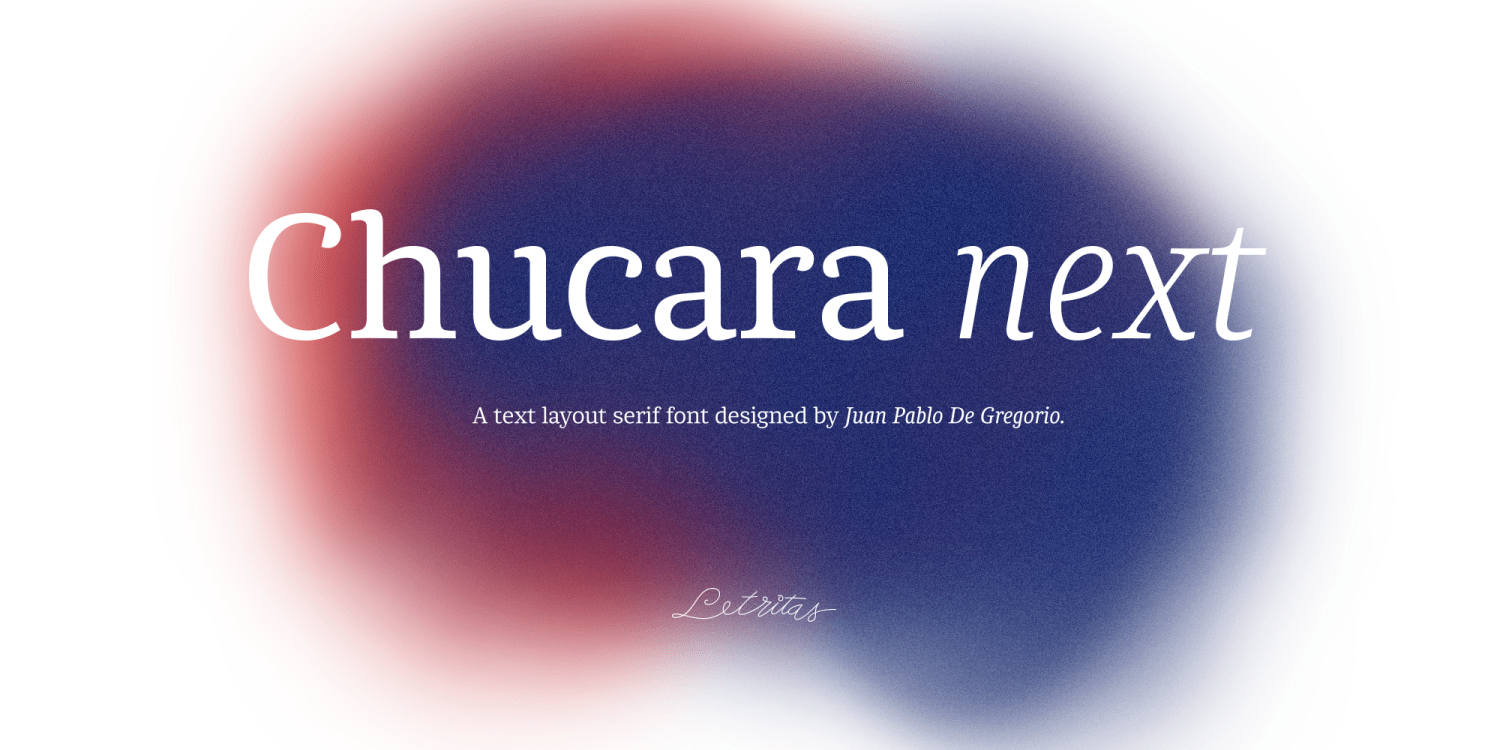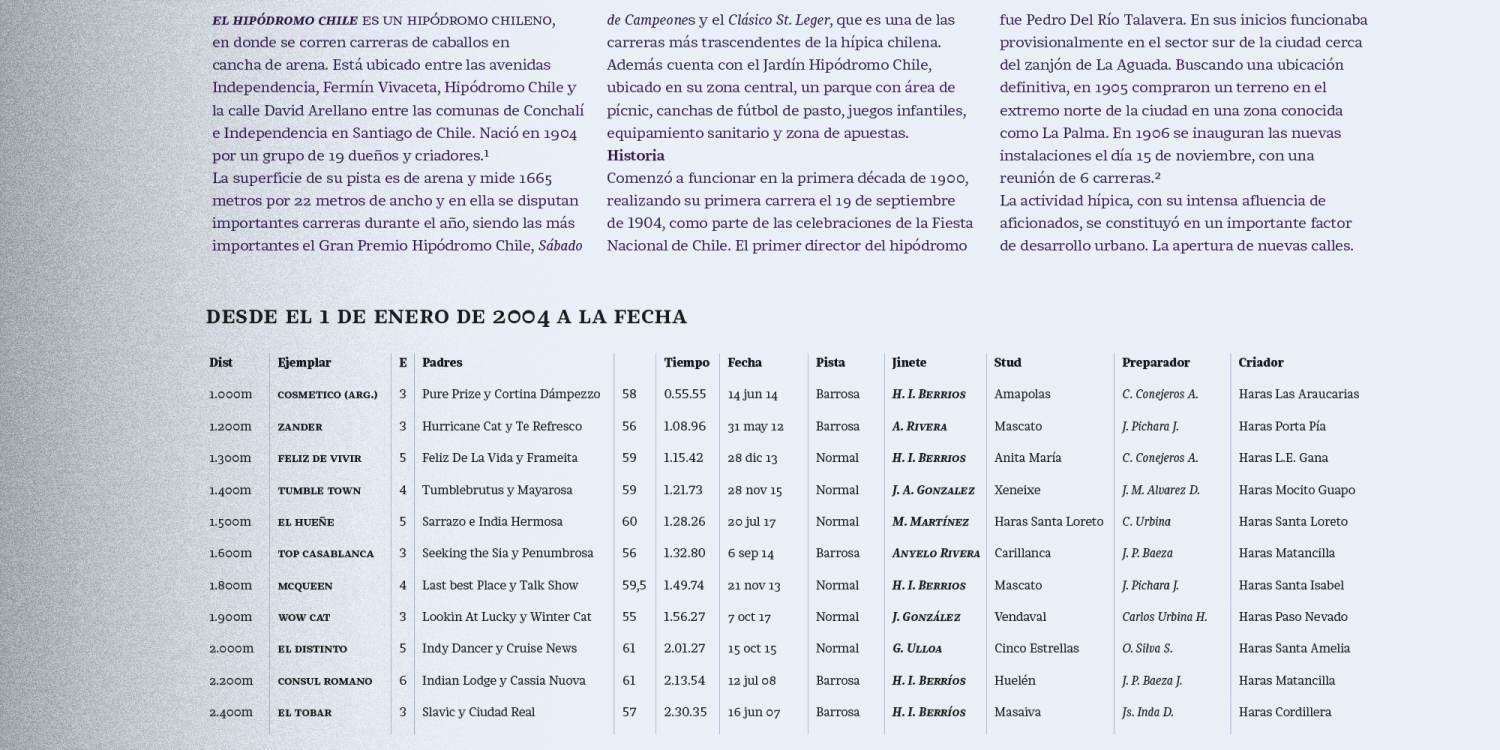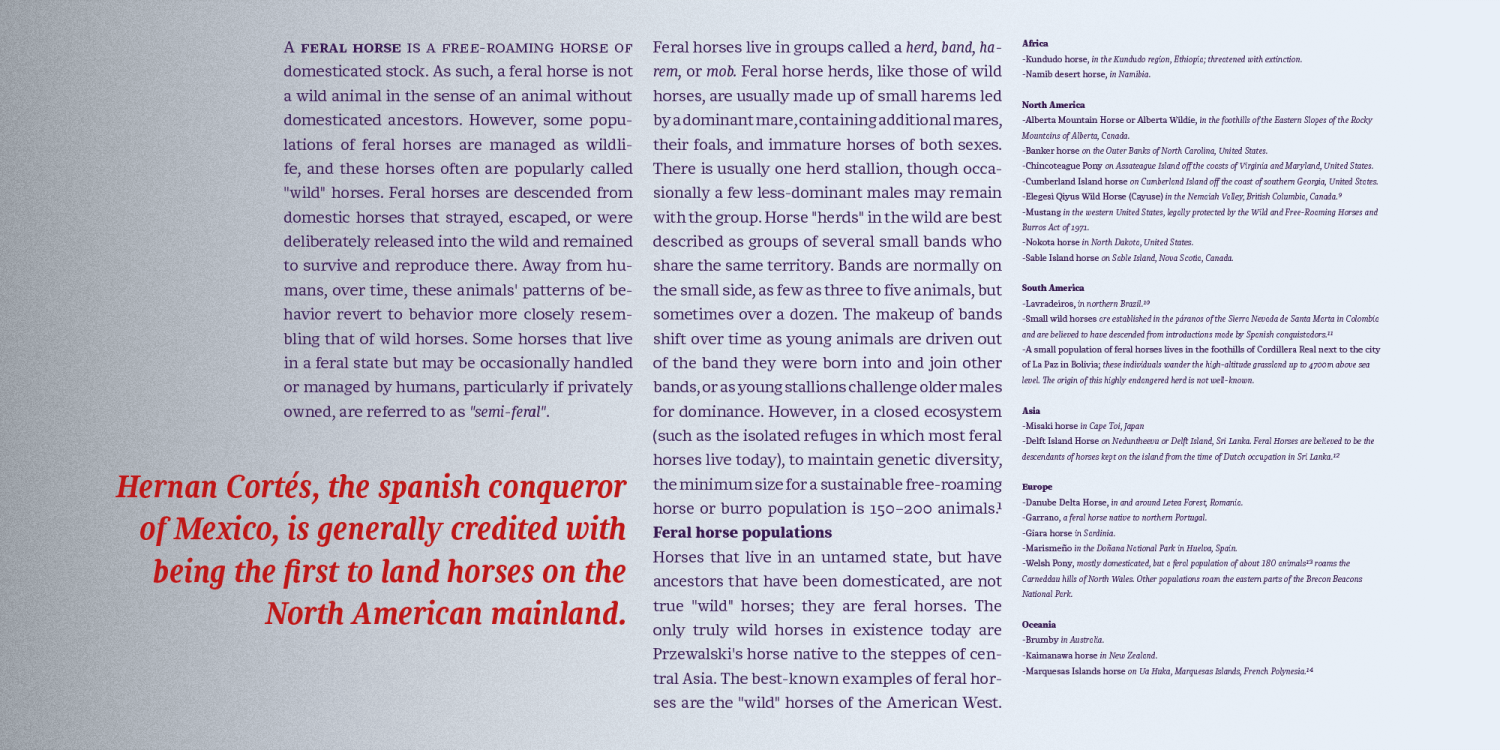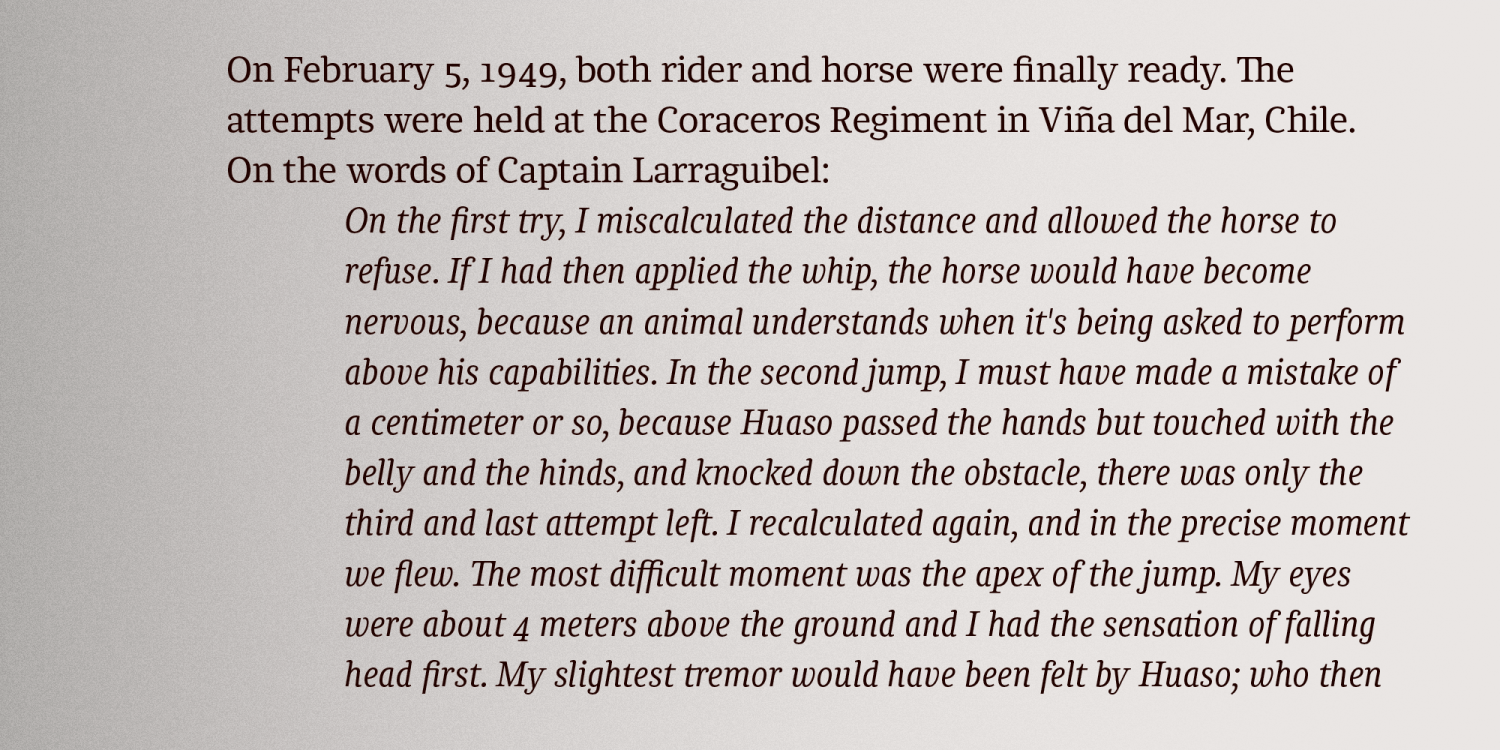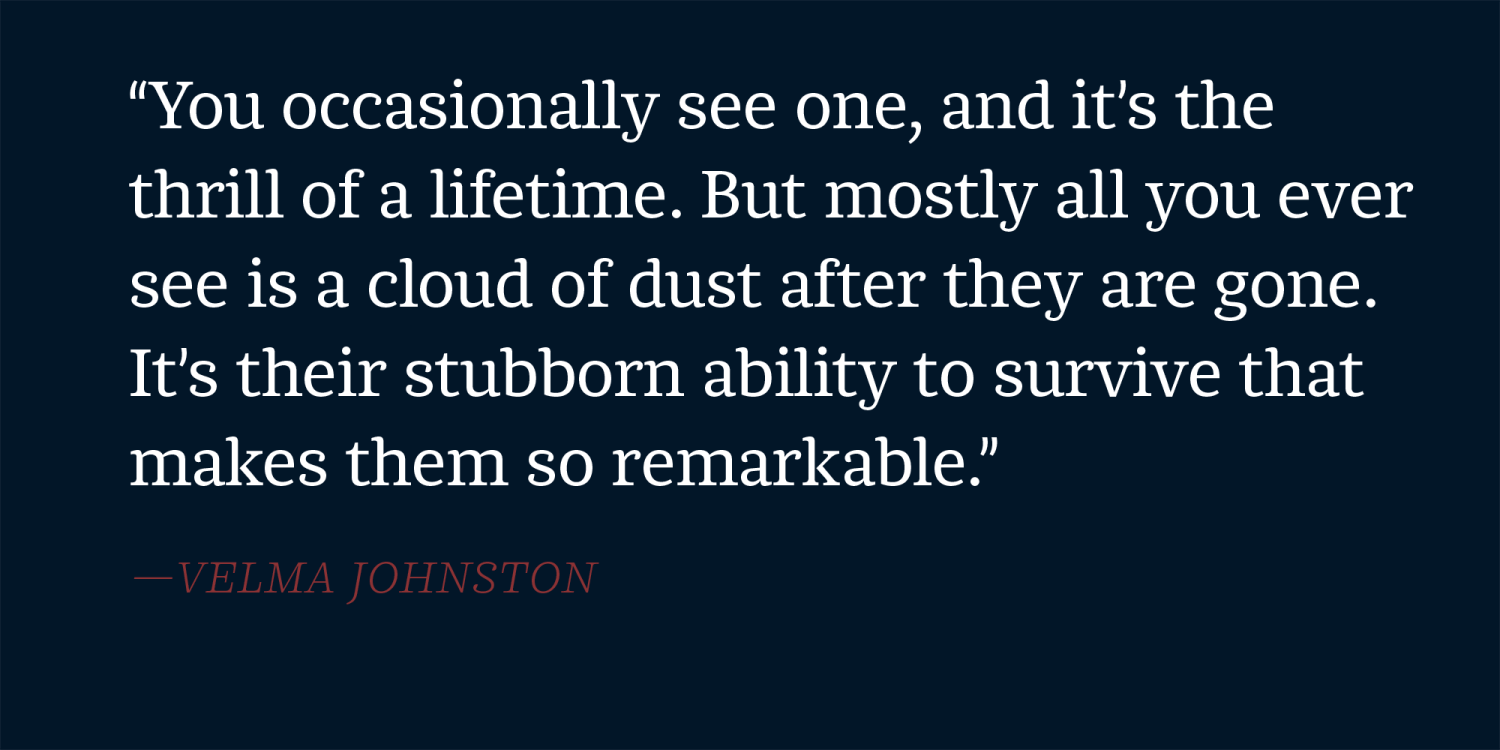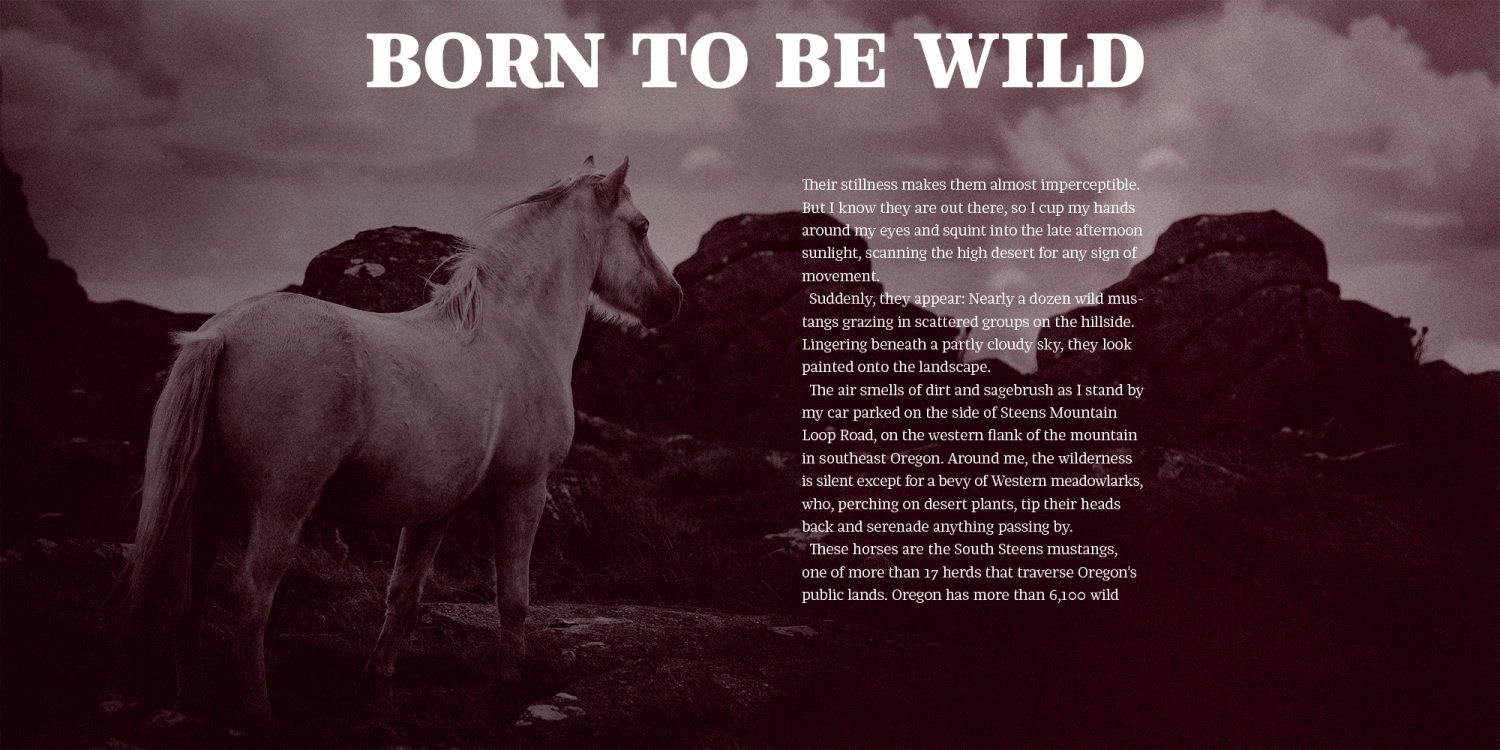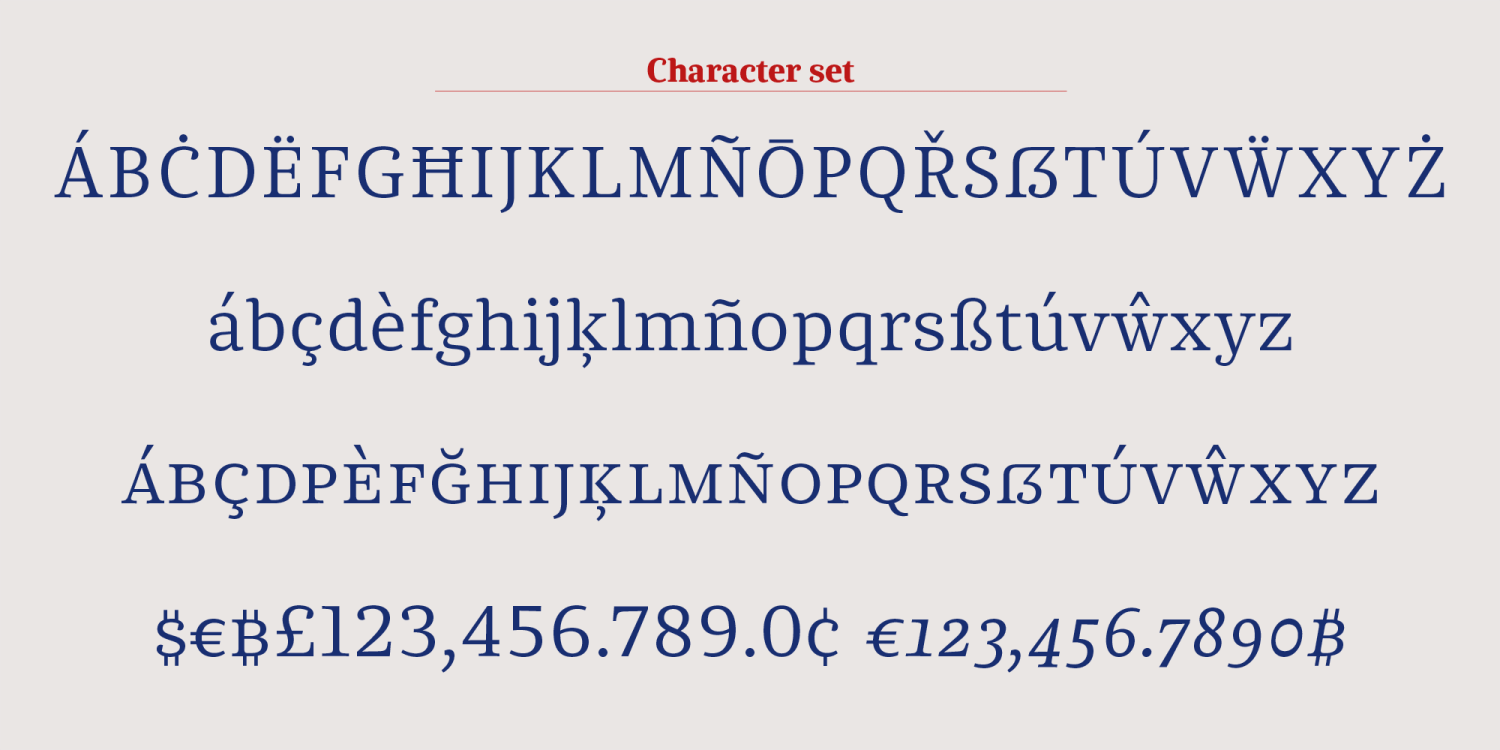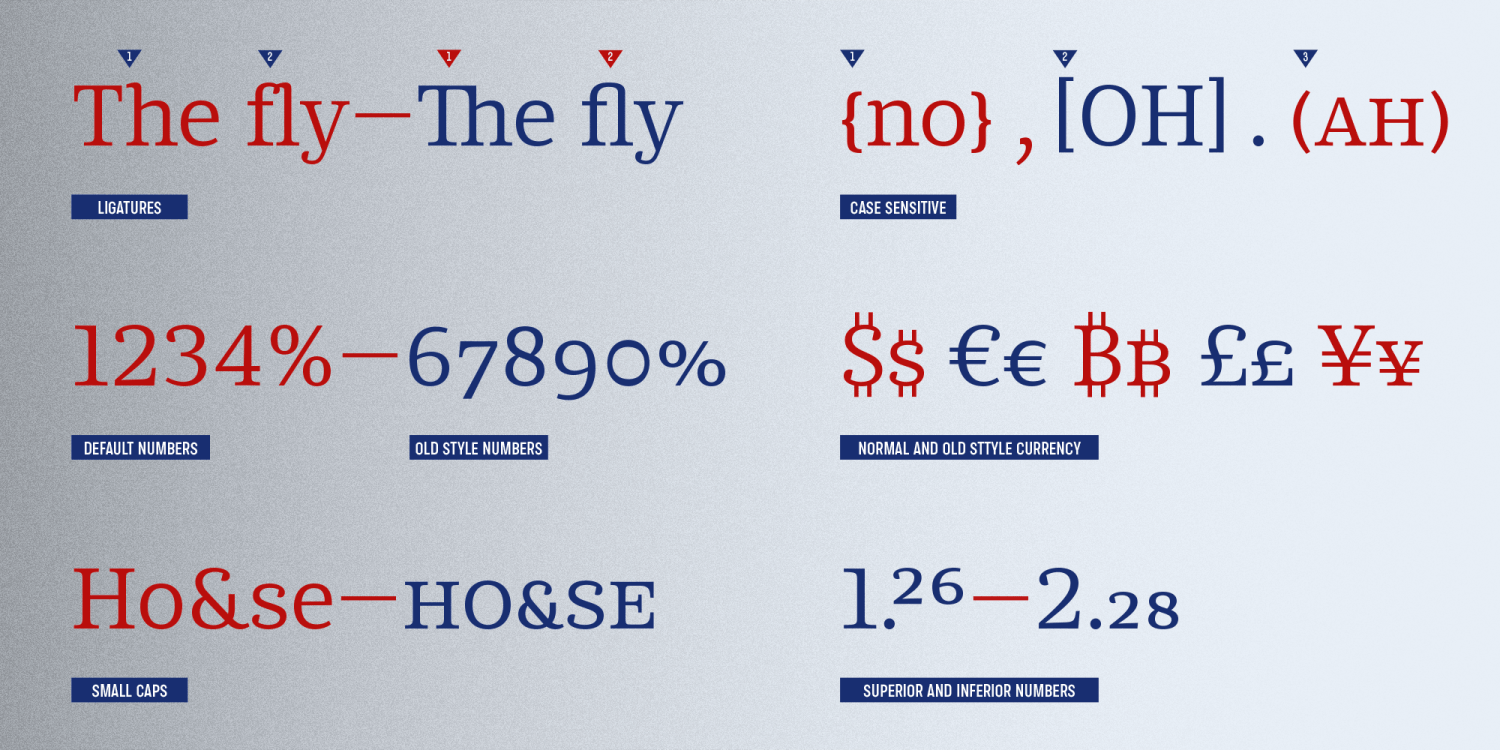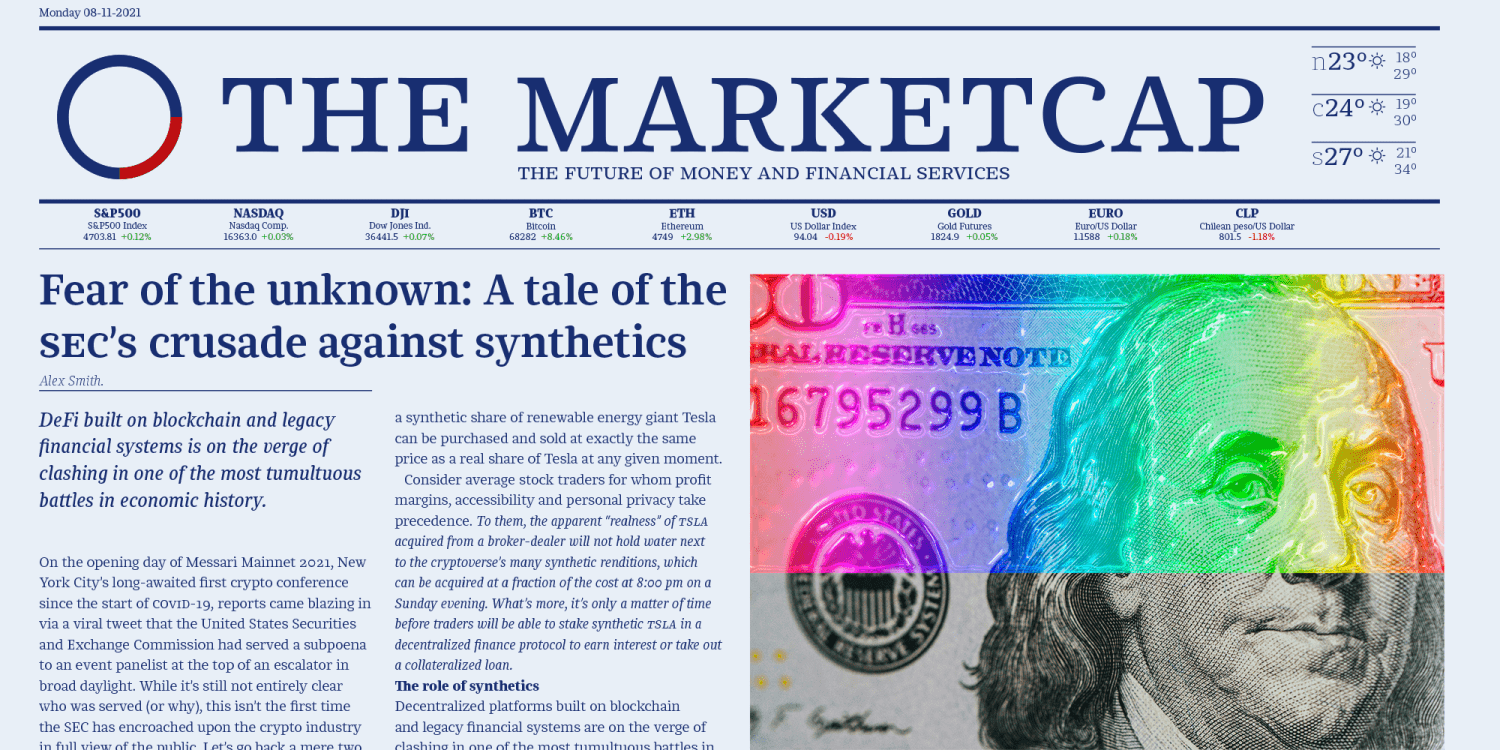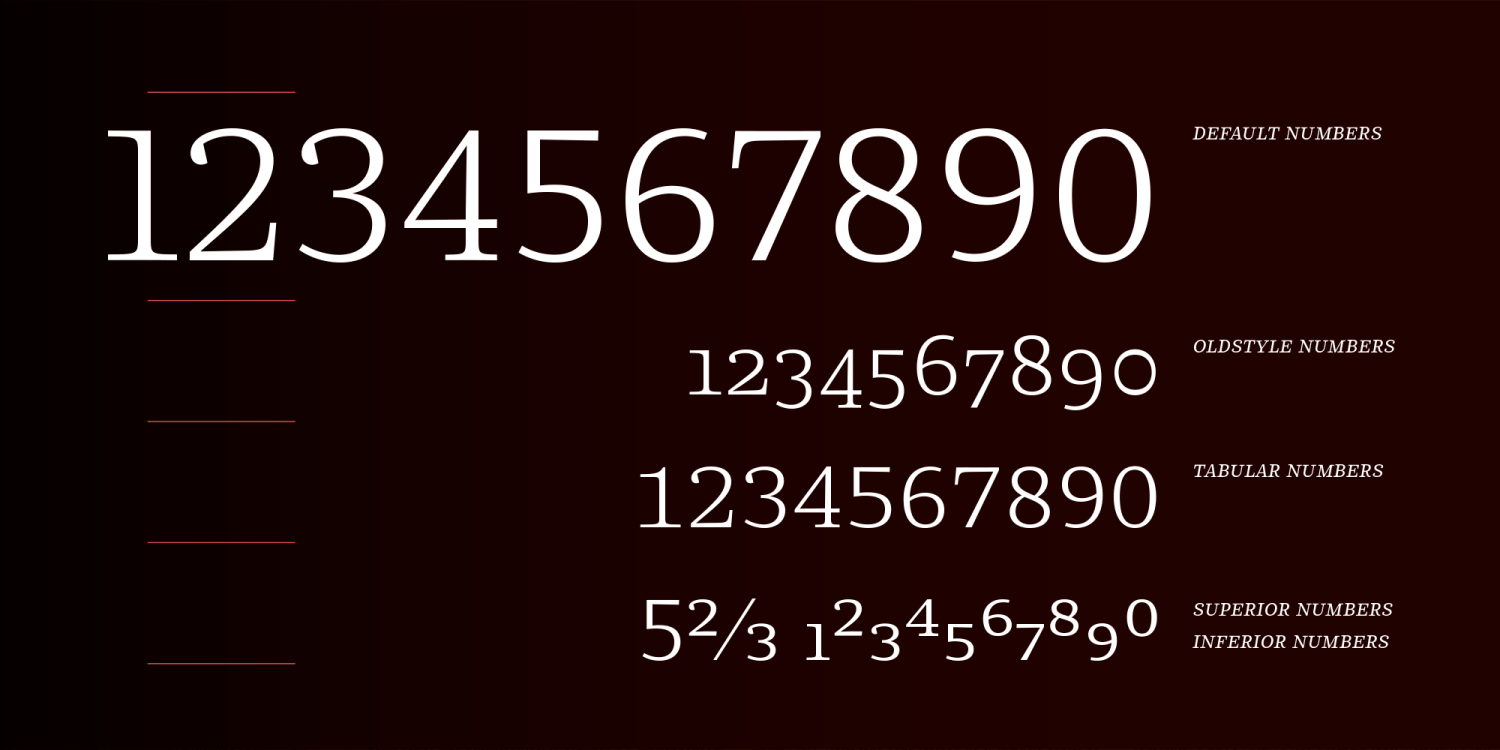
Chucara Next
Chucara Next is the newest font designed by Juan Pablo De Gregorio, a typeface aimed at high readability when set in paragraphs or large chunks of text. Its predecessor “Chúcara”, born in 2003, sought after increasing readability by achieving big and simple counterforms. This time around Juan Pablo went further by increasing the X-height and trimming both ascenders and descenders, thus the font appears to be much larger than it is and can be readable at smaller sizes.
The DNA of the whole font is marked by the terminal of the “a” character. Juan Pablo used a specially crafted cut to design this counterform, and this shape together with the graceful and winding forms of the letter resembles the form of a horse, hence the name Chúcara, or untamed.
The italic version has a 10-degree angle and a 10% condensation, making it way more streamlined than a regular italic font. The Philosophy of a larger counterform is maintained through and through in the italic variant. This version looks different not only due to its inclination, but the sheer effort put into carefully taking care of the condensation and the gestures allow the italic to enrich the texts gracefully, for the highlighting of the words stands out without affecting the grey of the paragraph.
Chucara next is a typeface optimal for being used in books, newspapers, magazines, texts, printing, headlines, editorial, quotes, corporate identity, and lo res printing.
The typeface has 8 weights, ranging from “thin” to “black”, and two versions: “regular” and “italic”. Its 16 files contain 635 characters with small caps, stylistic sets and different kind of numbers. It supports 219 Latin-based languages, spanning through 212 different countries.